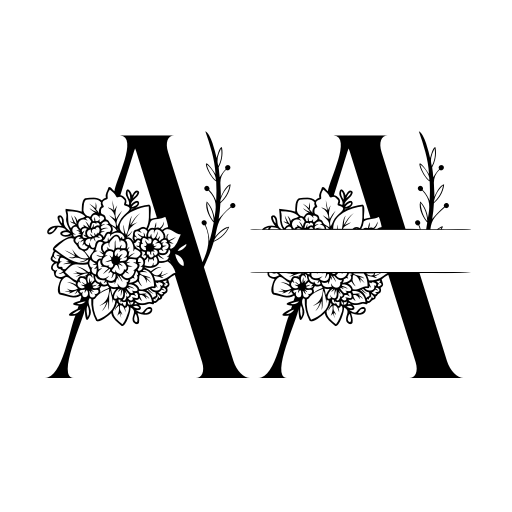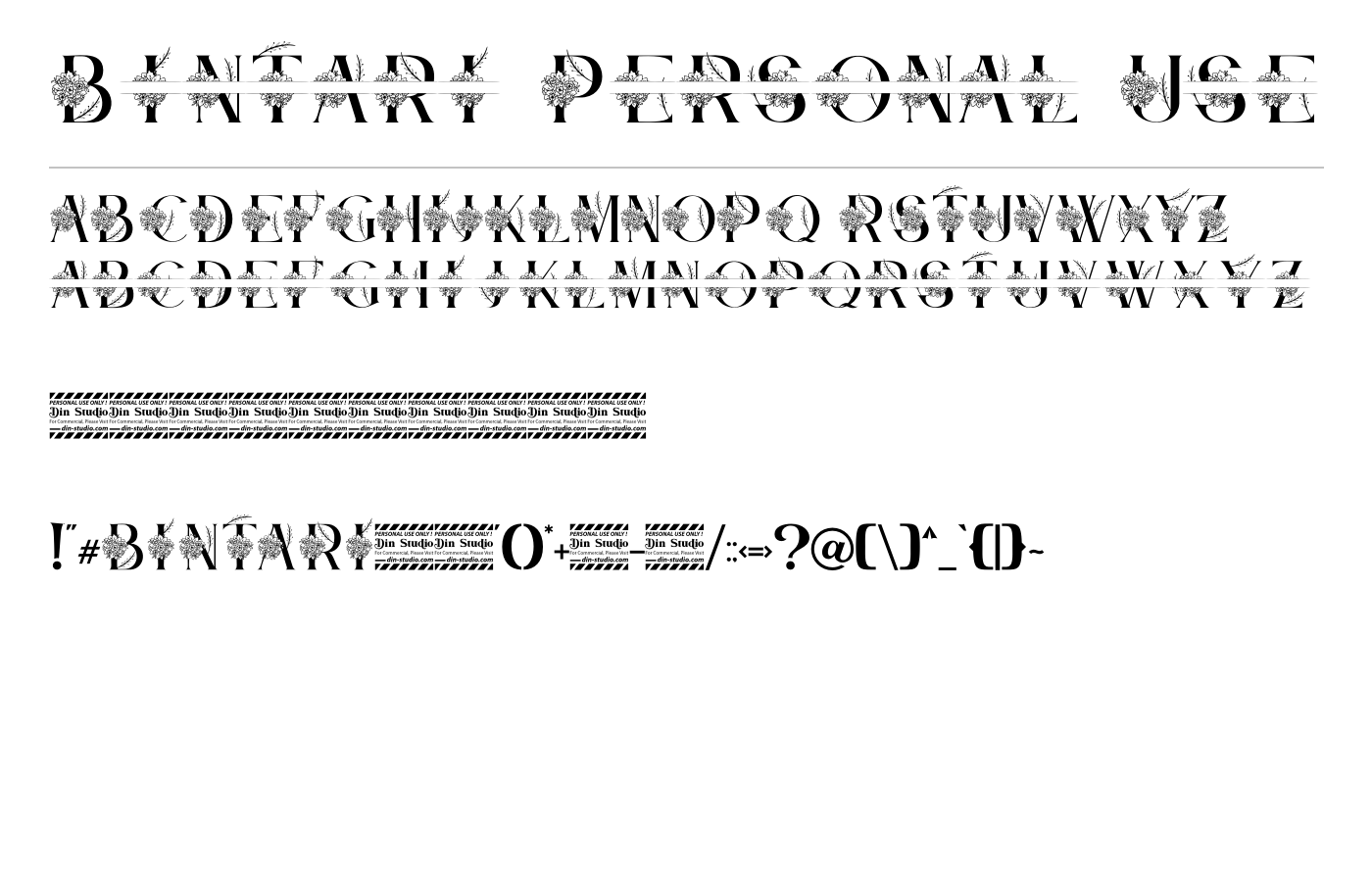
Bintari Personal Use is a stylish serif font that combines classic elegance with decorative floral accents crossing each character, giving it a unique and artistic flair. Its high contrast strokes and refined shapes make it perfect for sophisticated branding, invitations, or editorial designs that want to convey a blend of tradition and creativity with a distinct, eye-catching personality.
Bintari Personal Use Font
About Bintari Personal Use Font
| Font family | Bintari Personal Use Font |